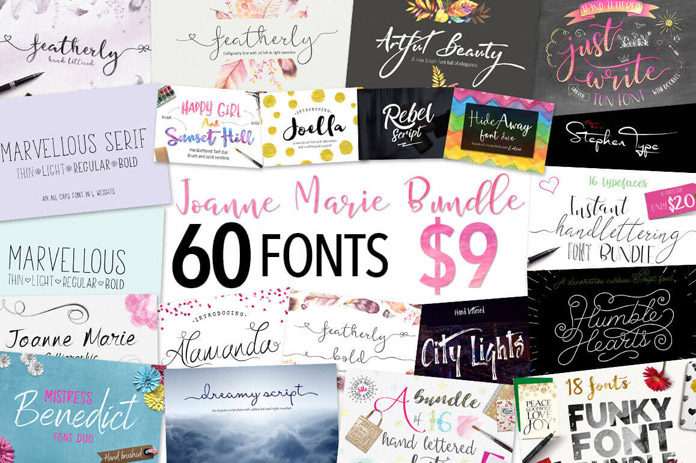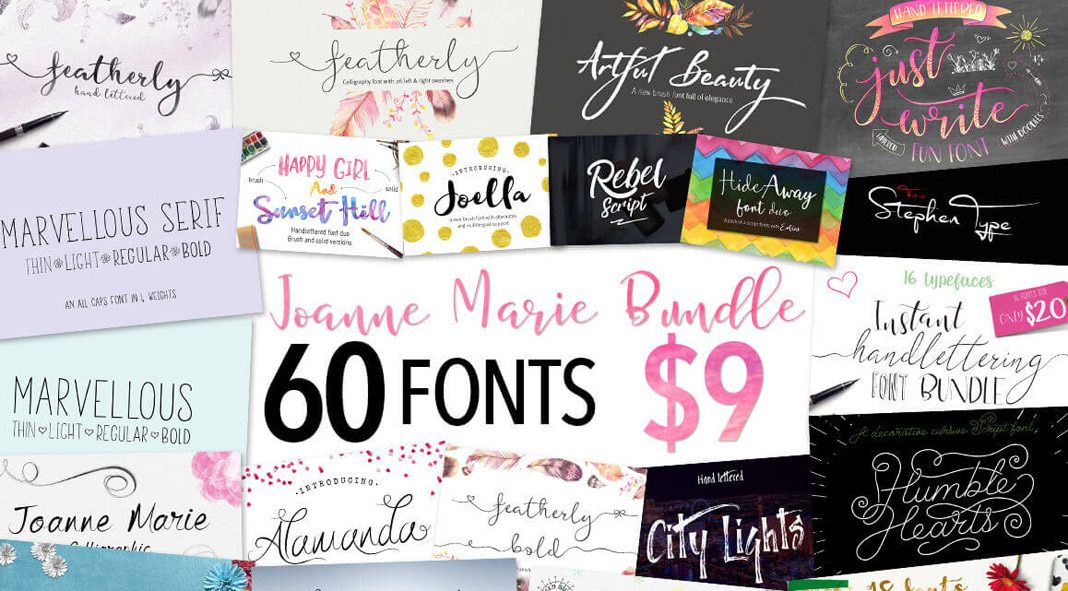
60 handmade fonts from brush to calligraphy styles.
Today it’s time to present you another amazing deal that ends quite soon. This big bundle from Mighty Deals consists of 60 handmade typefaces ranging from brush lettered to elegant calligraphy styles. All included fonts were created by graphic and type designer Joanne Marie. Many of these typefaces come with a variety of weights and OpenType features. When you download this bundle, you get all the fonts with an extended license. This way, you can use them for both personal or commercial projects. For further information, just follow the link below.